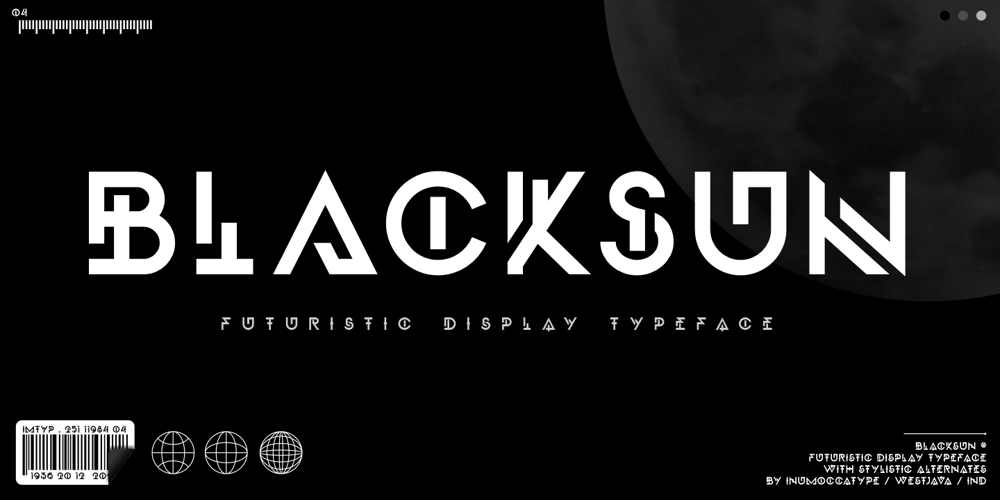
Black Sun Font Family was designed by Inu Mocca and published by Inumocca. Black Sun contains 1 styles and family package options. BlackSun – A futuristic, eyecatching font with simple, strong characters.Inspired by modern technology, synthwave, Sci-fi movie posters, science and generally space.A really great font for many projects, like lettering, website interface, magazines, branding, posters, wedding invitations, quotes lettering, logos, and more.- Unique glyphs- Multilingual support- UPPERCASE- Lowercase- Numeric- Symbol- Punctuation – PUA encoded- Stylistic alternates